How to create a sparkling diamond font effect in Photoshop
If you are interested in an effect to help your design shine, don't miss the sparkling diamond font effect in Photoshop. Specifically, please read how to do this with Sadesign to find out in detail in the following article!
1. How to create a background
To create a background, we proceed with the following basic steps:
- Step 1: Create a new document with dimensions of 1342 x 755 px.
Then set the Foreground color to #161819 and the Background color to #010101.
Select the gradient tool then click the Radial gradient icon on the Option bar.
Then drag from the middle of the document to one of the corners.
Duplicate the background layer.
- Step 2: Double click on the Background copy layer to apply the Pattern Overlay effect using the following settings:
Blend Mode: Overlay
Pattern: DP1-E
This has the effect of styling the background for a diamond effect.
With just simple steps, we have succeeded in the first step of creating the background for the design.
2. How to create sparkling text and style on the first layer
To create sparkling text and style the first layer, we need to follow the instructions as follows:
- Step 1: You create the text "Diamonds " in font Fortuna Dot, Size 200 pt and color #a7a59f.
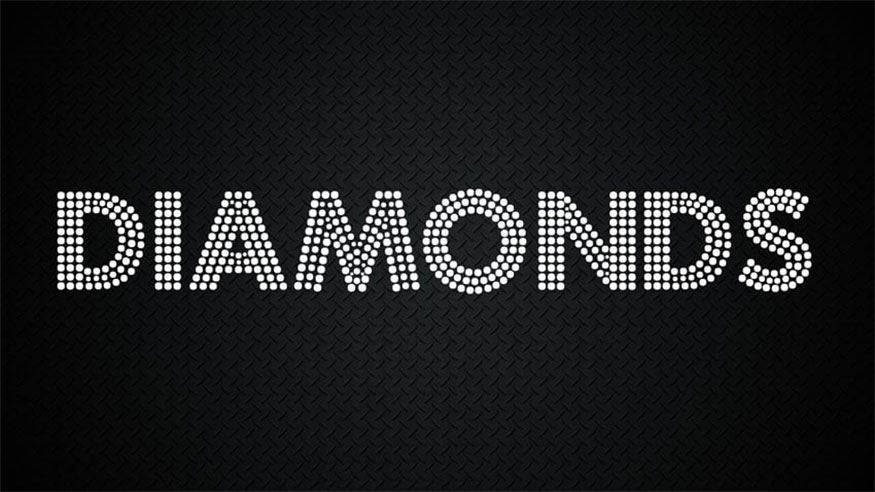
Duplicate the "Diamonds" text layer and change Fill value of the copy to 0.
- Step 2: Double-click the original text layer to apply the following layer style: Add Bevel and Emboss and make the following settings:
Size: 10
Gloss Contour: Ring
Check the Anti-aliased box
Highlight Mode: Vivid Light
Shadow Mode - Color: #a6a6a6
- Step 3: Let's start creating the diamond effect texture in Photoshop.
Add a Border then proceed with the following settings:
Check the Anti-aliased box.
Range: 25%
- Step 4: Add Texture with the following settings:
Pattern: Mesh Transparent BG
- Step 5: Add Pattern Overlay with the following settings:
Pattern: Crystal Pattern
Scale: 10%
- Step 6: Add Drop Shadow with the following settings:
Opacity: 50%
Distance: 10
Spread: 15
Size: 5
This will create the first layer of the effect.
3. Styling instructions for the second text layer
To create the second text layer, double-click the copied text layer to apply the following sparkle text layer style:
- Step 1: Add Bevel and Emboss with the following settings:
Technique: Chisel Hard
Size: 6
Uncheck Global Light box